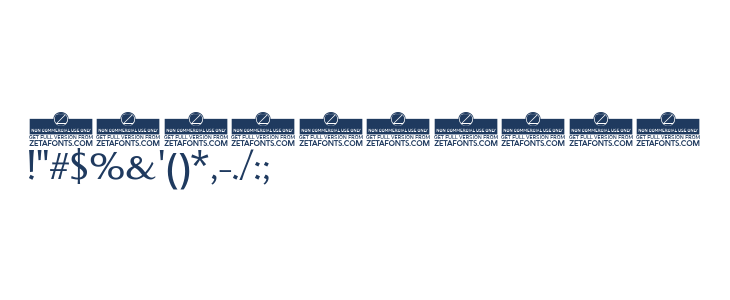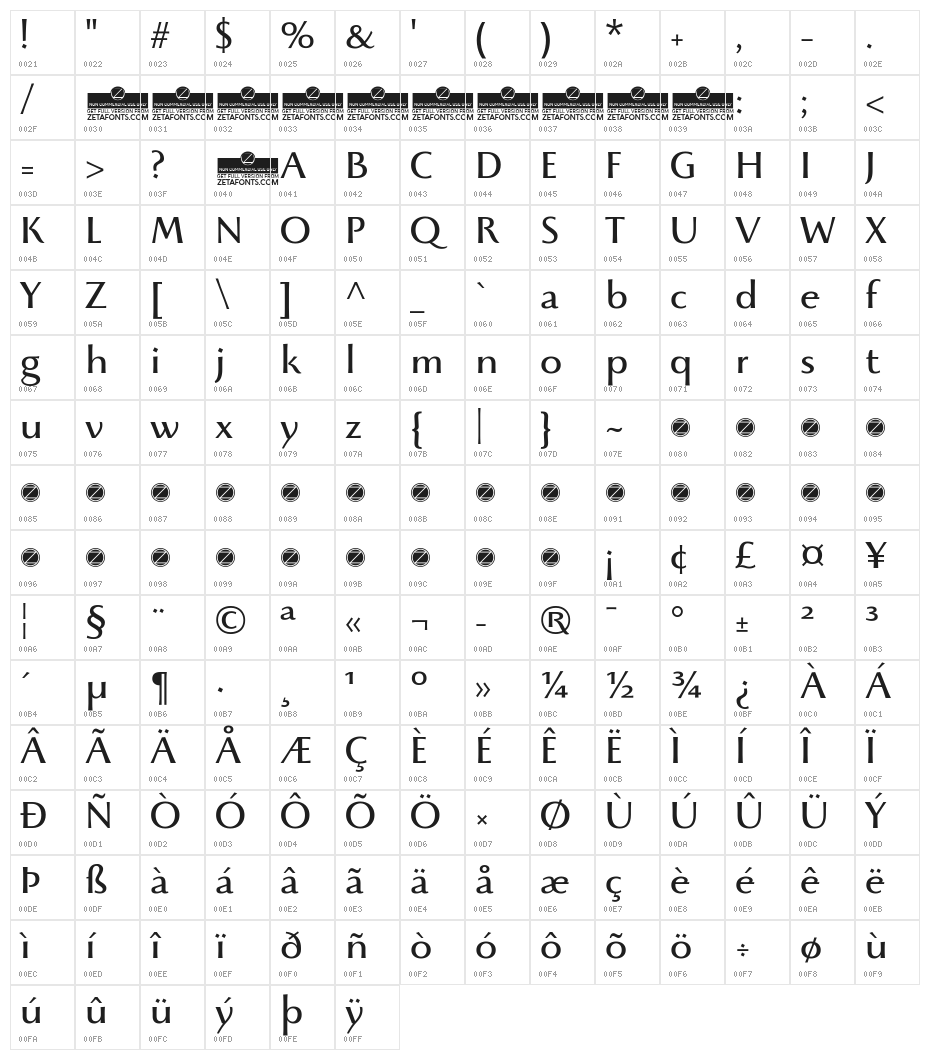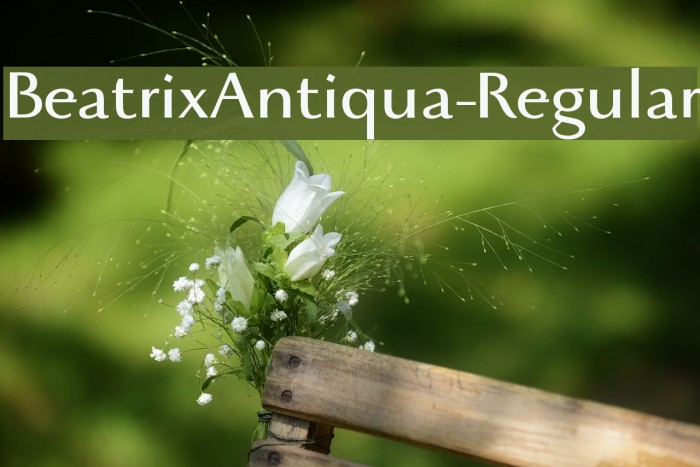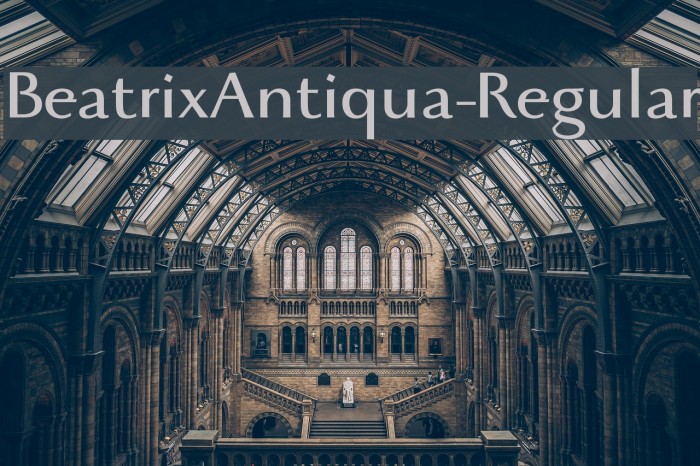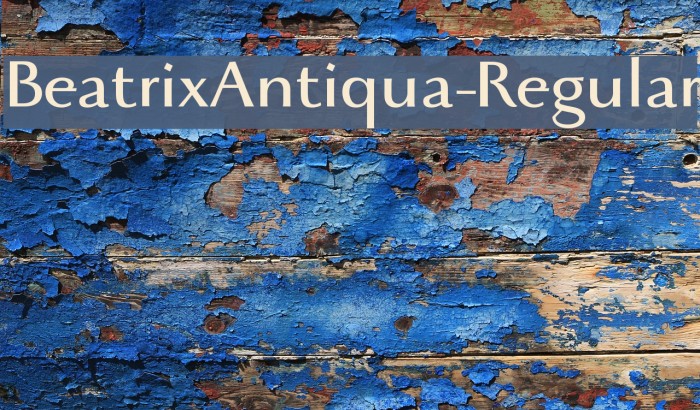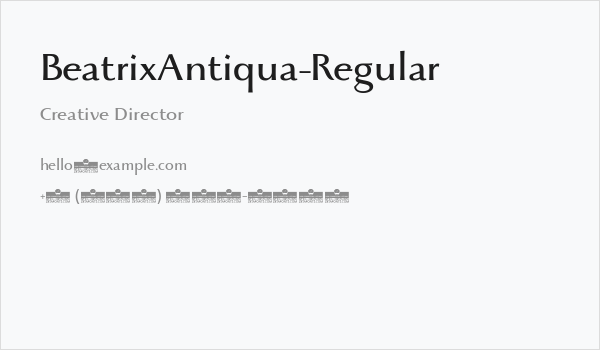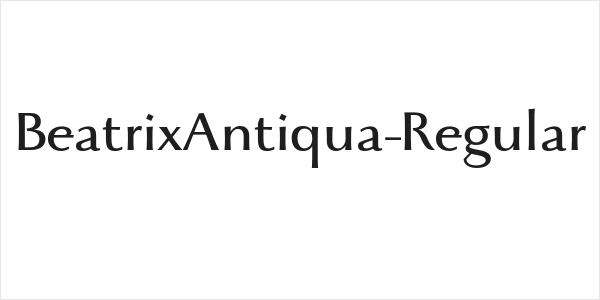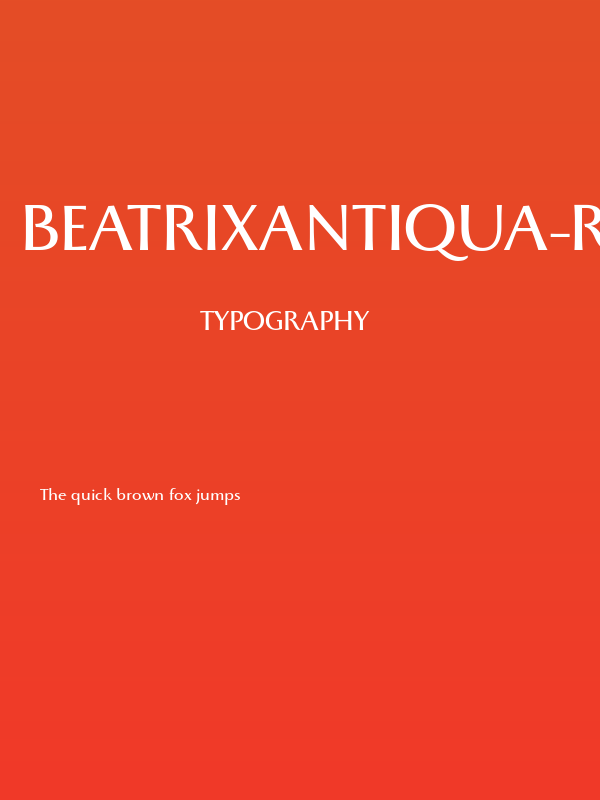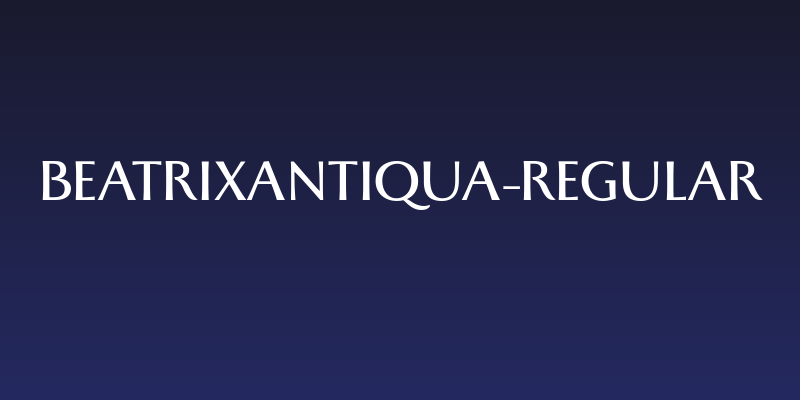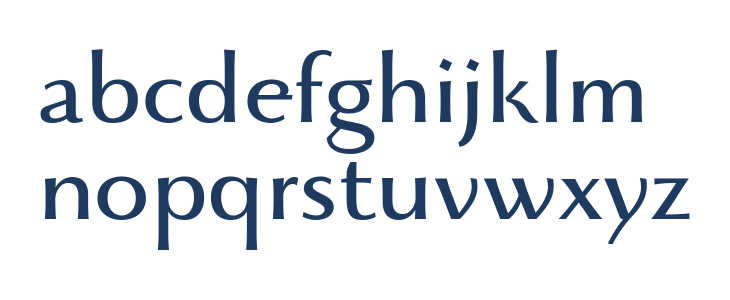
This typeface features a classic serif style with elegant, sweeping curves and a refined structure. The uppercase letters exhibit a strong presence with their bold and slightly condensed form, while the lowercase letters maintain a harmonious balance with their more delicate strokes. The font showcases a medium contrast between thick and thin lines, enhancing its readability and sophistication. The numerals and special characters are designed to complement the overall aesthetic, providing a cohesive look across all glyphs. This font is suitable for both digital and print media, offering versatility and timeless appeal.
| Proposed Projects | Perfect for editorial design, book covers, formal invitations, branding, and luxury packaging. |